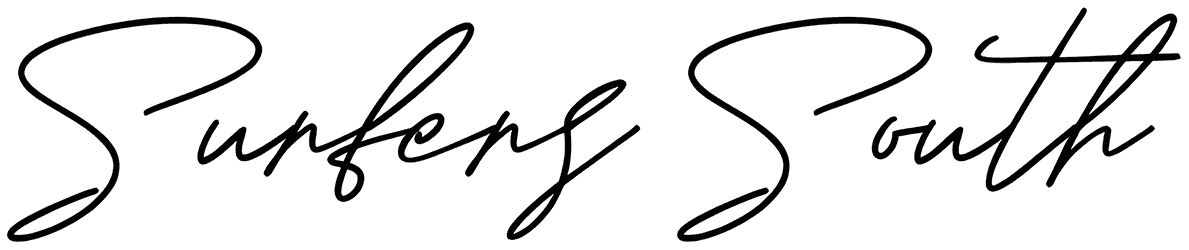
Surfers South Font
With this unique signature font, your final showcase will convey a professional feeling to your audiences. The smooth lines of characters will give a charming visual to your projects, such as a business card for an artis…
With this unique signature font, your final showcase will convey a professional feeling to your audiences. The smooth lines of characters will give a charming visual to your projects, such as a business card for an artist. Even though there is no offer for numbers and punctuation marks, you can set this handwritten font on your new projects and mesmerize your potential clients.